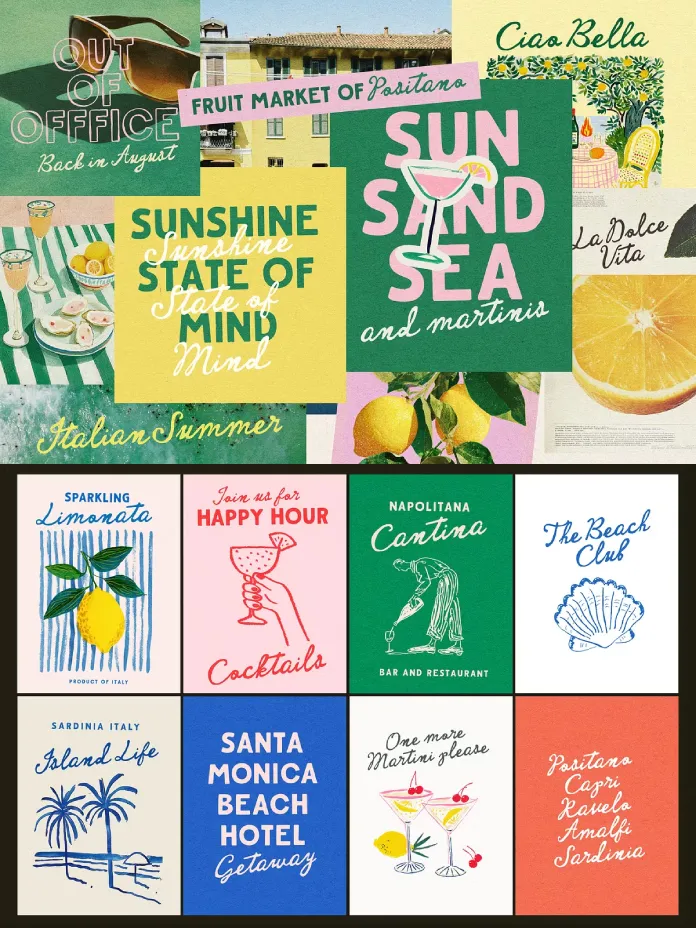
Some fonts arrive quietly. Cantina Riviera does not. The moment you set the Cantina Riviera font duo on a page, something shifts — the design suddenly smells like sun-baked stucco, coastal menus hand-lettered in the 1950s, and matchbooks left on a bar counter in the south of France. That specific sensory pull is rare in type design. Nicky Laatz, the South Africa-based independent type designer behind this release, has built an entire creative economy on that kind of emotional precision. Cantina Riviera is one of her most compelling arguments yet for why tactile, character-rich typography still wins in a world increasingly dominated by sterile geometric sans-serifs.
The timing couldn’t be sharper. Across branding, editorial, packaging, and social media, the appetite for what I’d call Warm Vintage Authenticity — typefaces that feel hand-touched, regionally rooted, and deliberately imperfect — has never been stronger. Cantina Riviera lands squarely inside that moment. The Cantina Riviera aesthetic exceeds the trend, though, because the duo is engineered with enough technical sophistication to serve serious commercial work, not just mood boards.
So what exactly makes Cantina Riviera worth your attention? Let’s break it down properly. And why, specifically, does the Cantina Riviera font duo outperform most vintage-inspired alternatives on the market right now?
What Is the Cantina Riviera Font Duo, and Why Does It Work So Well?
Cantina Riviera is a font duo — two complementary typefaces designed to work together as a visual system. The first is a bold, rough-edged all-caps sans. The second is a fluid, inky, imperfect script. Laatz describes the Cantina Riviera pairing with a phrase that’s almost too accurate: “Opposites attract.” She’s right. The structural tension between these two styles is precisely what gives the duo its energy.
The sans carries the weight. It draws from a tradition of hand-painted signage — the kind of sturdy, unapologetic lettering you’d find stenciled onto wooden crates, fishing boats, or the awning of a decades-old cantina on the Italian coast. Rough edges break the uniformity of each letterform. No two strokes feel mechanically identical. That deliberate roughness is not a flaw; it’s the entire point. It communicates craft, age, and a confidence that only comes from doing something with your hands.
The script is its counterpart — loose, inky, and alive. Where the sans stands firm, the script breathes. It references 1950s matchbook lettering and the kind of handwritten annotation a designer might scrawl beside a headline to soften it. Together, they operate as a classic typographic contrast pair: structure and flow, weight and grace, permanence and movement.
This is a principle I call the Contrast Harmony Framework in font duo selection: the most effective pairings are not those that match, but those that negotiate. Cantina Riviera negotiates beautifully.
The Historical DNA of Cantina Riviera
Understanding where Cantina Riviera comes from makes the design choices click into place. Laatz explicitly draws from two reference points: traditional vintage sign painting and 1950s matchbook typography. Both are rich, underexplored design traditions.
Sign painting — the craft of hand-lettering storefronts, trucks, and public signage — reached its commercial peak between the 1920s and 1960s. Sign painters worked quickly, with practiced hands, building letterforms that were both legible at a distance and visually distinctive up close. The roughness in those letters wasn’t accidental. It came from brush drag, surface texture, and the physical limits of the medium. The Cantina Riviera sans preserves that quality digitally — a technique I’d describe as Analogue Trace Translation, where digital type design deliberately encodes the physical evidence of its original medium into the final letterforms.
Matchbook typography from the 1940s and 50s operated under similar constraints. Tiny print surfaces, cheap paper, and mass production created a distinctive visual language: bold, confident headings paired with fluid, handwritten-style scripts for names, slogans, and addresses. That combination — assertive caps and casual script — is the exact DNA Cantina Riviera inherits and modernizes.
A Closer Look at the Cantina Riviera Caps: Rough, Bold, and Built to Lead
The caps font in the Cantina Riviera duo is the anchor. It commands the headline, the label, and the poster title. Think of it as the sign above the door — something that sets the tone before a single word of body text appears.
Laatz offers several variants within the caps to give designers genuine flexibility. The standard version carries that signature rough edge — textured, imperfect, and full of personality. For projects that need a cleaner finish without abandoning the retro spirit entirely, a smoother version is included. There’s also an outline version, which opens up layering possibilities. Add a lighter weight to the mix, and you have a small internal type system within a single font file.
That layering potential is significant. Outline and solid variants of the same typeface allow designers to build depth into a single typographic element — stacking the outline behind the solid version, shifting colors between layers, or using the lighter weight for a secondary line beneath a bold headline. This approach, which I call Intra-Font Layering, turns a single font purchase into a compositional tool that rivals full display families costing five times as much.
Is Cantina Riviera suitable for luxury or premium branding?
Cantina Riviera suits premium branding in categories where craft, heritage, and Mediterranean lifestyle associations add value — hospitality, artisan food and beverage, travel, lifestyle, and fashion. It is not a conventional luxury serif typeface and doesn’t suit ultra-minimalist or corporate premium aesthetics. It performs best where warmth and character are brand assets rather than liabilities.